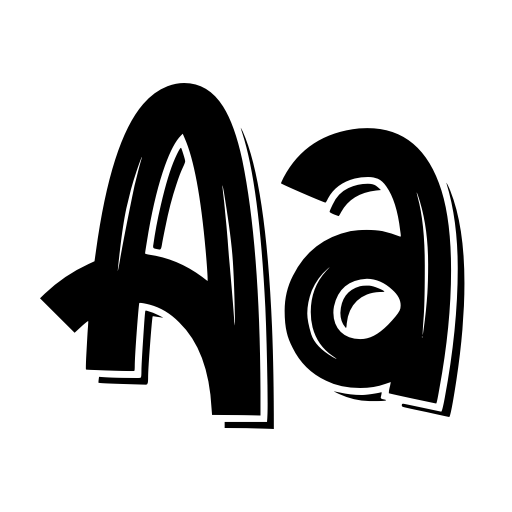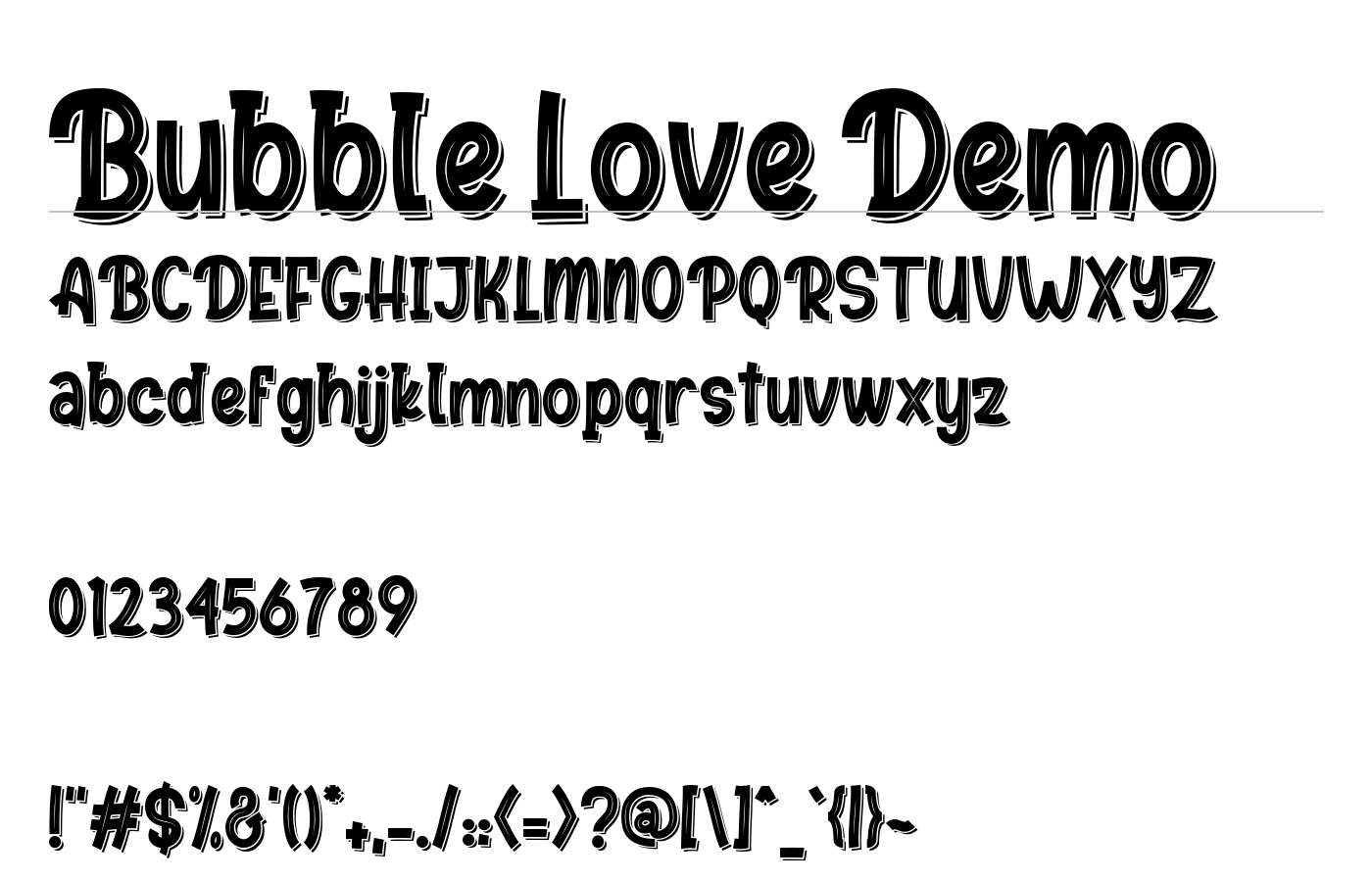
Bubble Love is a playful and bold sans serif display font with rounded, bubbly letterforms and a fun, hand-drawn style. Its lively, slightly condensed shapes and strong shadow effect give it a cheerful, energetic personality, making it perfect for children’s designs, party invitations, or casual branding that wants to feel approachable and whimsical. This font works best in headlines or logos where its unique and eye-catching look can shine.
Bubble Love Font
About Bubble Love Font